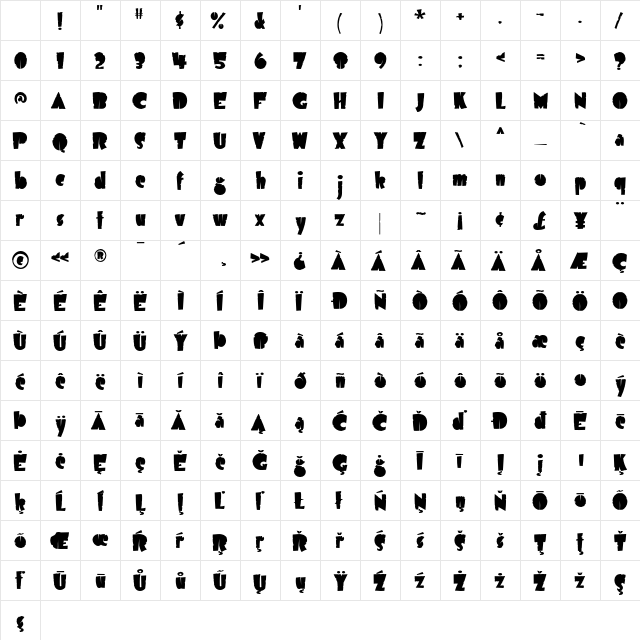
Complete Airmole Antique glyph index. Displaying only characters natively supported by Airmole Antique font.
Airmole wears its vintage influences proudly, with letterforms that recall mid-century signage, classic packaging, and nostalgia-driven design.
Font Pairing: Combine Airmole with a simple slab or neutral sans - period-accurate companions reinforce the vintage feel without competing for attention.
Pro Tip: Lean into Airmole's period character by pairing it with aged paper textures, muted colour palettes, and vintage illustration styles.